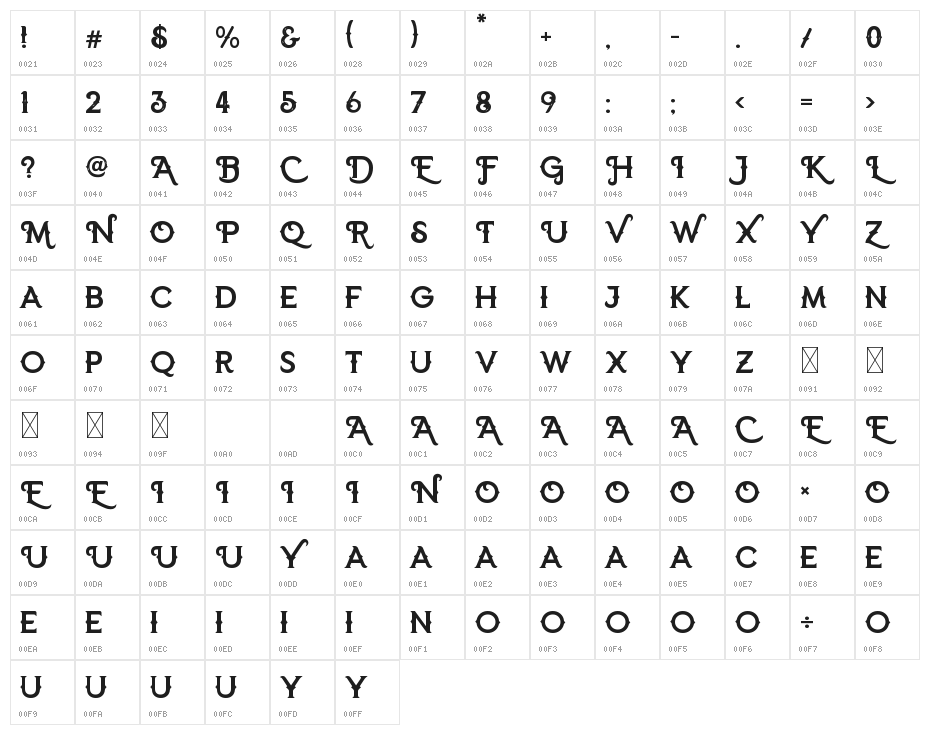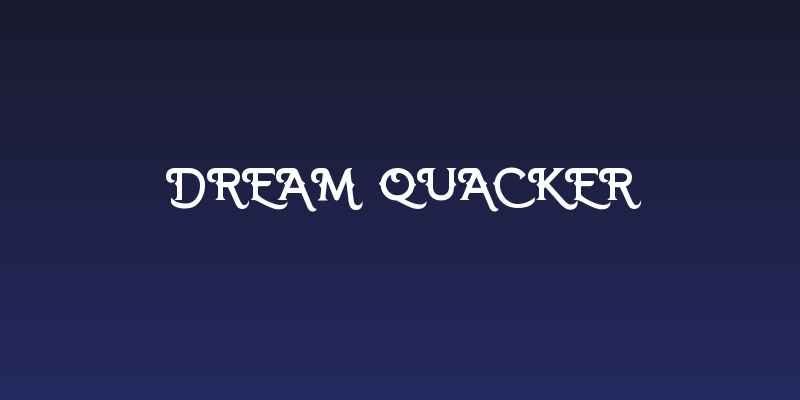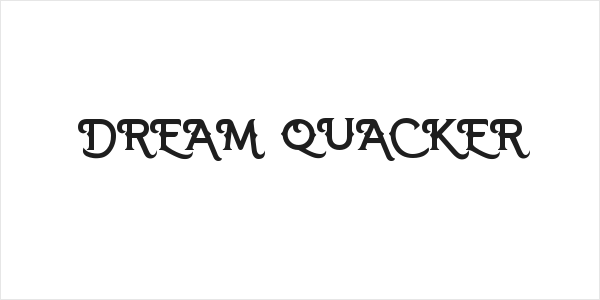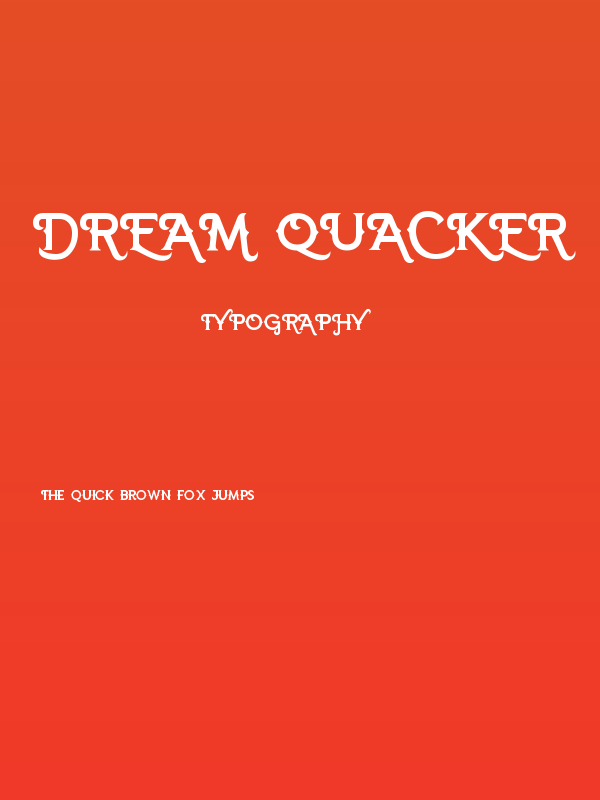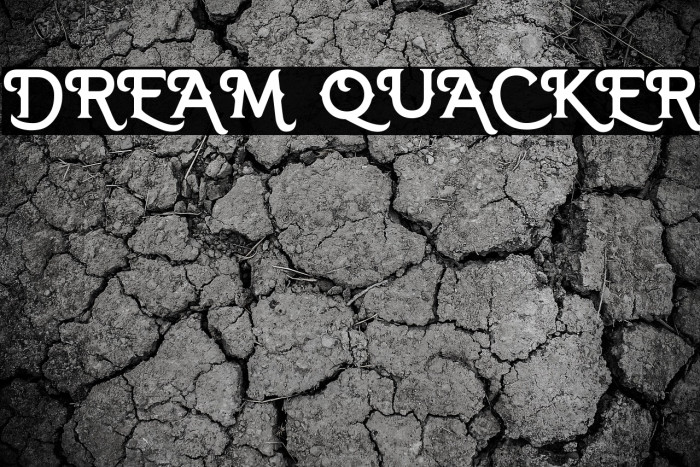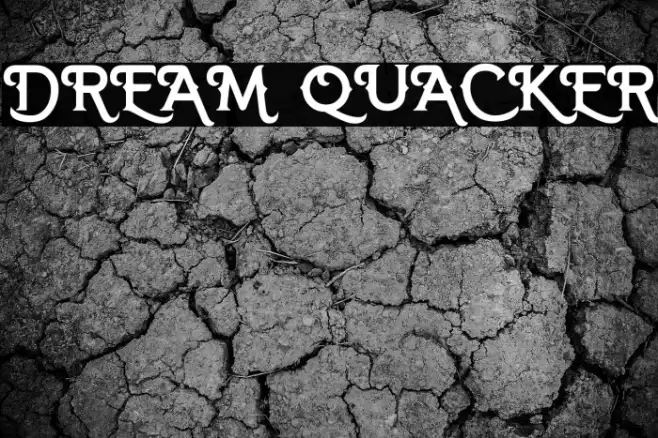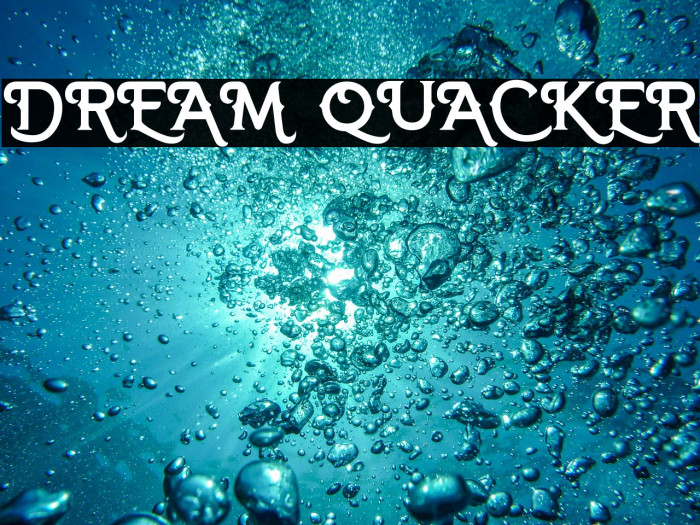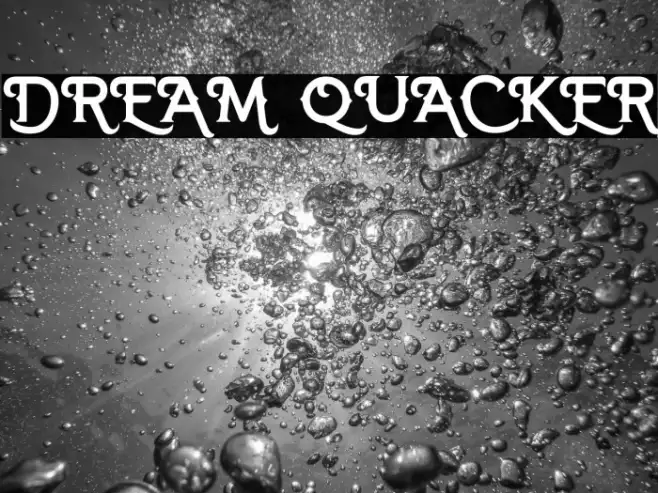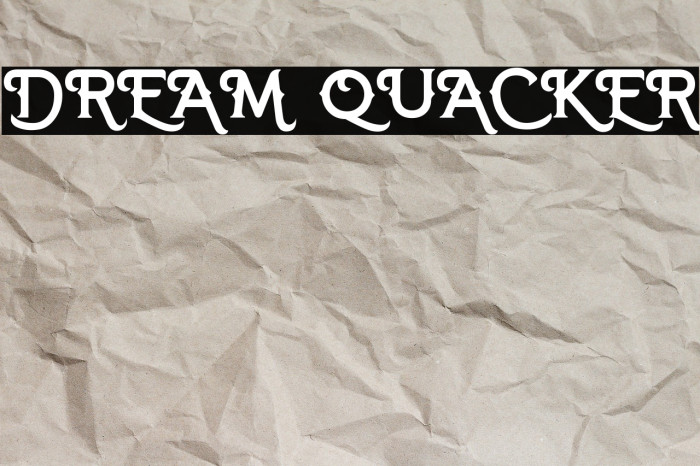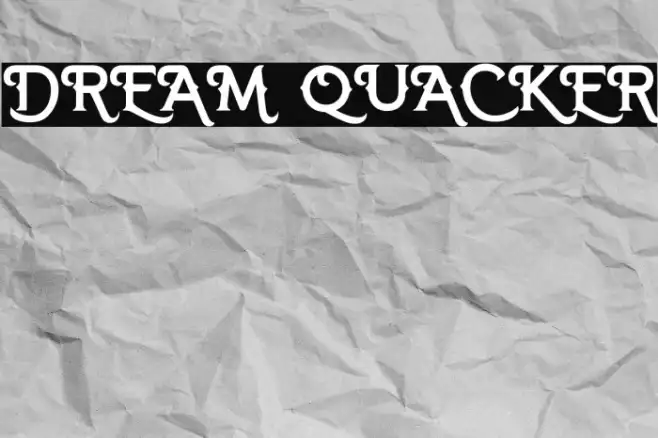
DREAM QUACKER Font
DREAM QUACKER Description
This font features a playful and whimsical design with a unique blend of bold strokes and decorative elements. The uppercase letters are characterized by their ornate curls and loops, giving them a lively and dynamic appearance. The lowercase letters maintain a consistent style, complementing the uppercase with their own flair. The numerals are distinct and easily readable, while the special characters add a touch of creativity with their intricate designs. Overall, this font exudes a sense of fun and creativity, making it suitable for projects that require a touch of personality and charm.